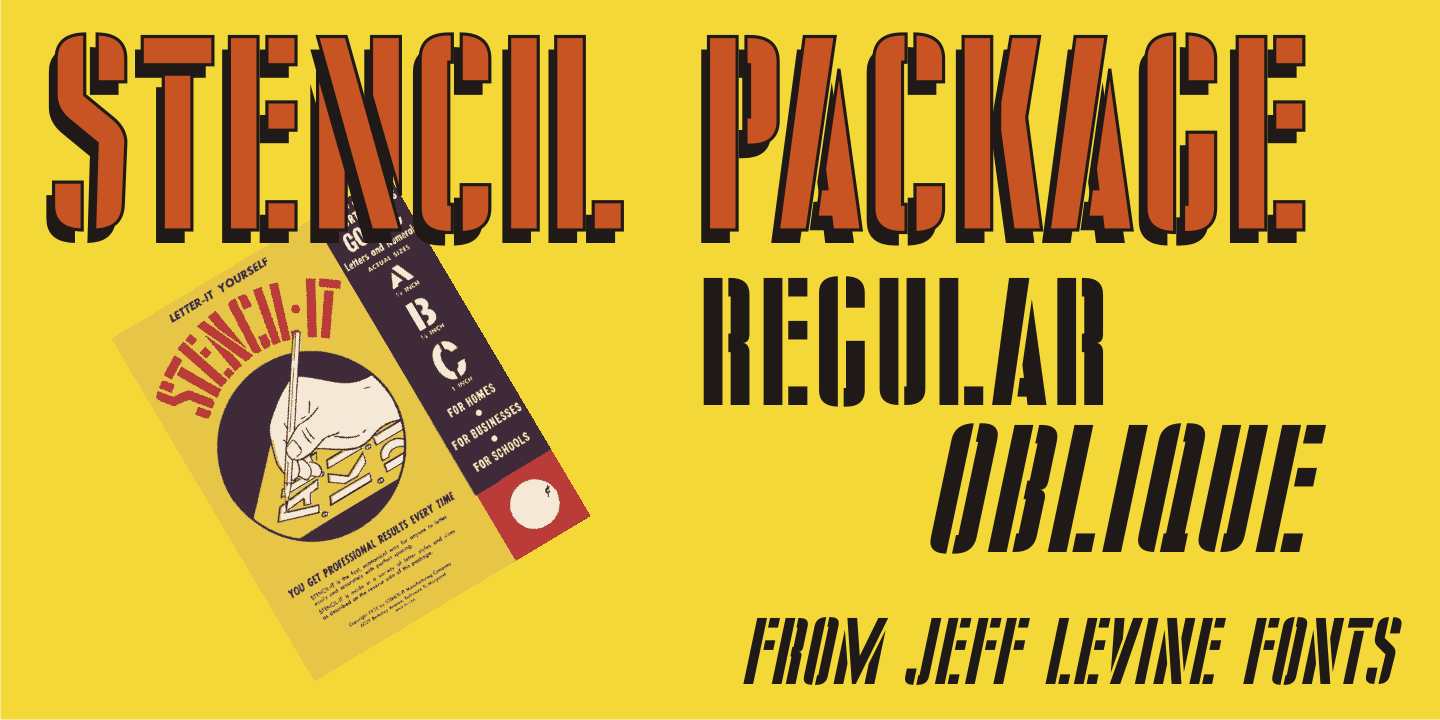
Stencil Package JNL Font is perfect for shipping companies, logistics branding, military-inspired designs, industrial packaging systems, warehouse operations, cargo labeling projects, utilitarian signage, tactical equipment branding, and any project requiring typography with practical stencil functionality and professional shipping aesthetics.
What makes Stencil Package JNL Font exciting is its utilitarian precision that captures the essential functionality and professional efficiency of industrial stenciling with letterforms designed for maximum clarity and durability in demanding commercial environments. This practical typeface embodies the no-nonsense approach of shipping and logistics with cut-out construction that ensures perfect reproduction across various surfaces, materials, and printing conditions. The font's industrial character and packaging sophistication make it perfect for brands that prioritize functionality, reliability, and the clear identification required for efficient operations in commercial and military applications.
The Stencil Package JNL Font family includes regular weight with complete uppercase and lowercase alphabets, numerals, punctuation marks, and industrial stencil elements. The font maintains consistent utilitarian clarity throughout all letterforms while ensuring optimal visibility for both commanding package labels and detailed shipping documentation in logistics and industrial contexts.
Whether you're designing for freight companies, creating military equipment branding, or developing industrial packaging with stencil aesthetics, Stencil Package JNL Font Free Download delivers unmatched functional authority and industrial sophistication to your projects. This exceptional typeface transforms ordinary text into durable expressions of professional efficiency that honor the practical traditions of industrial marking and commercial identification systems. The font's utilitarian character makes it ideal for logistics companies, military contractors, and industrial manufacturers. Download this remarkable font today and bring the professional functionality of industrial stenciling to your design projects with authentic utilitarian sophistication and package-ready durability.